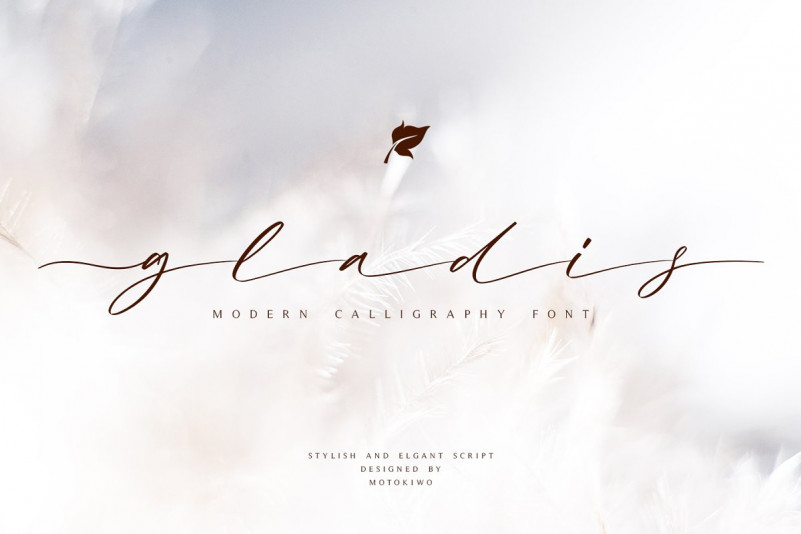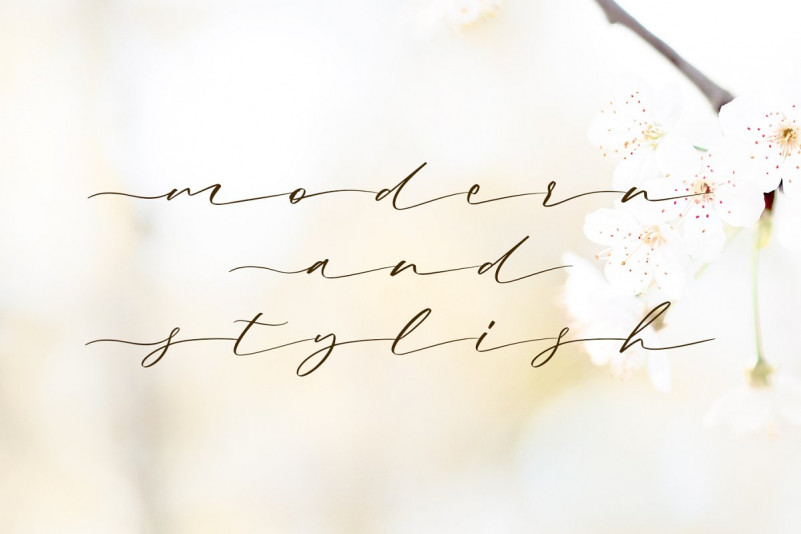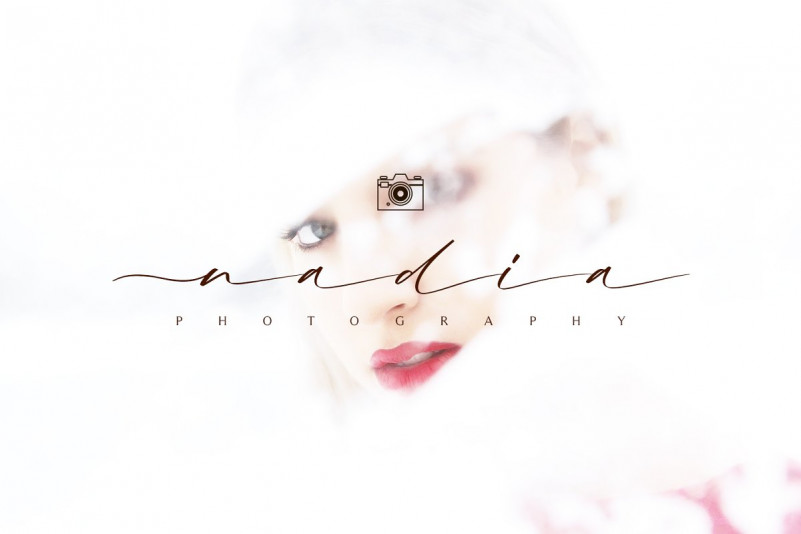
Gladis Font
Gladis is a modern calligraphy font that has thin strokes and wide characters. A super stylish and elegant for branding purpose and also great for romantic projects. Gladis created with passion and designed to be a reflection of beauty.